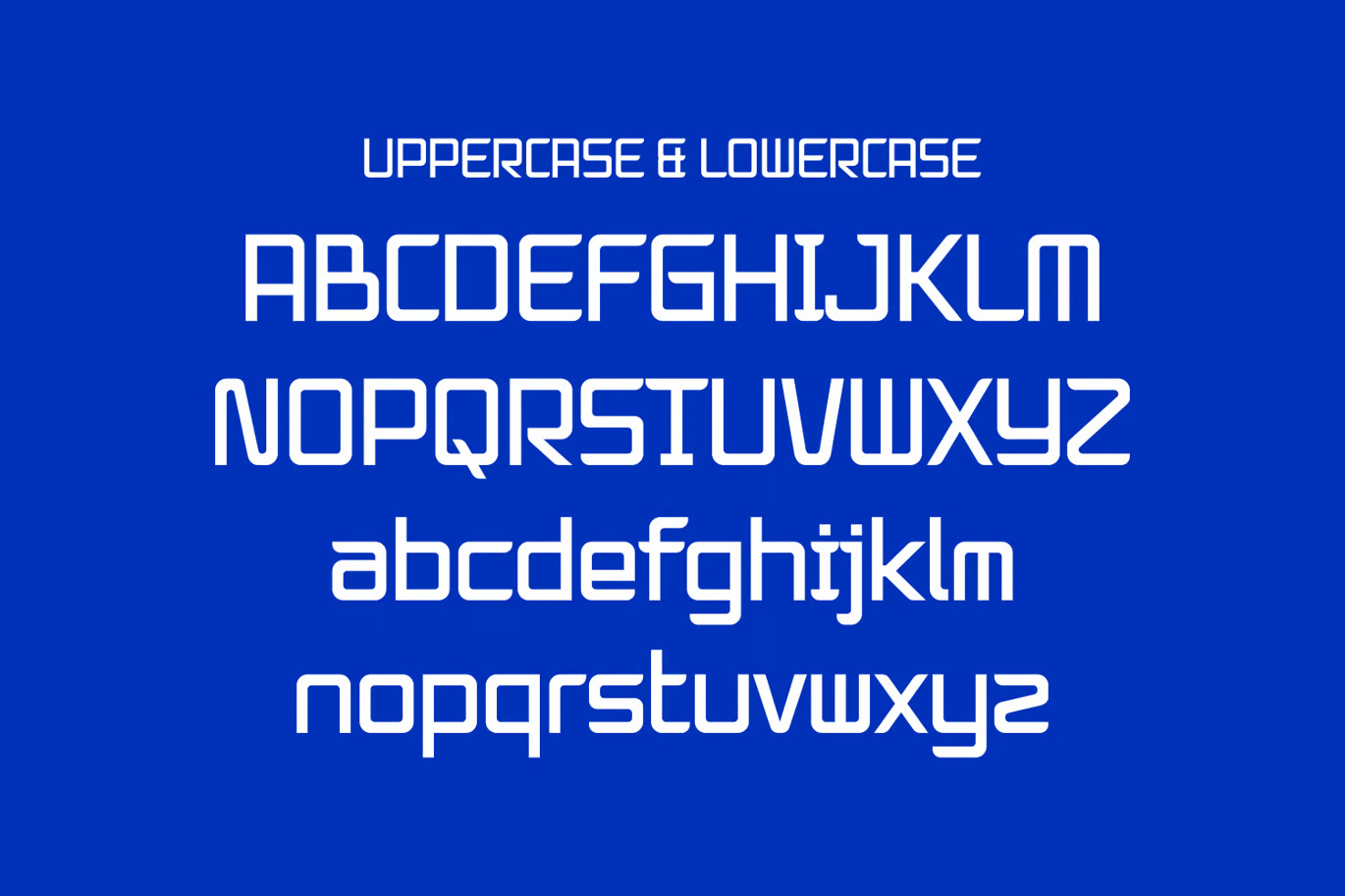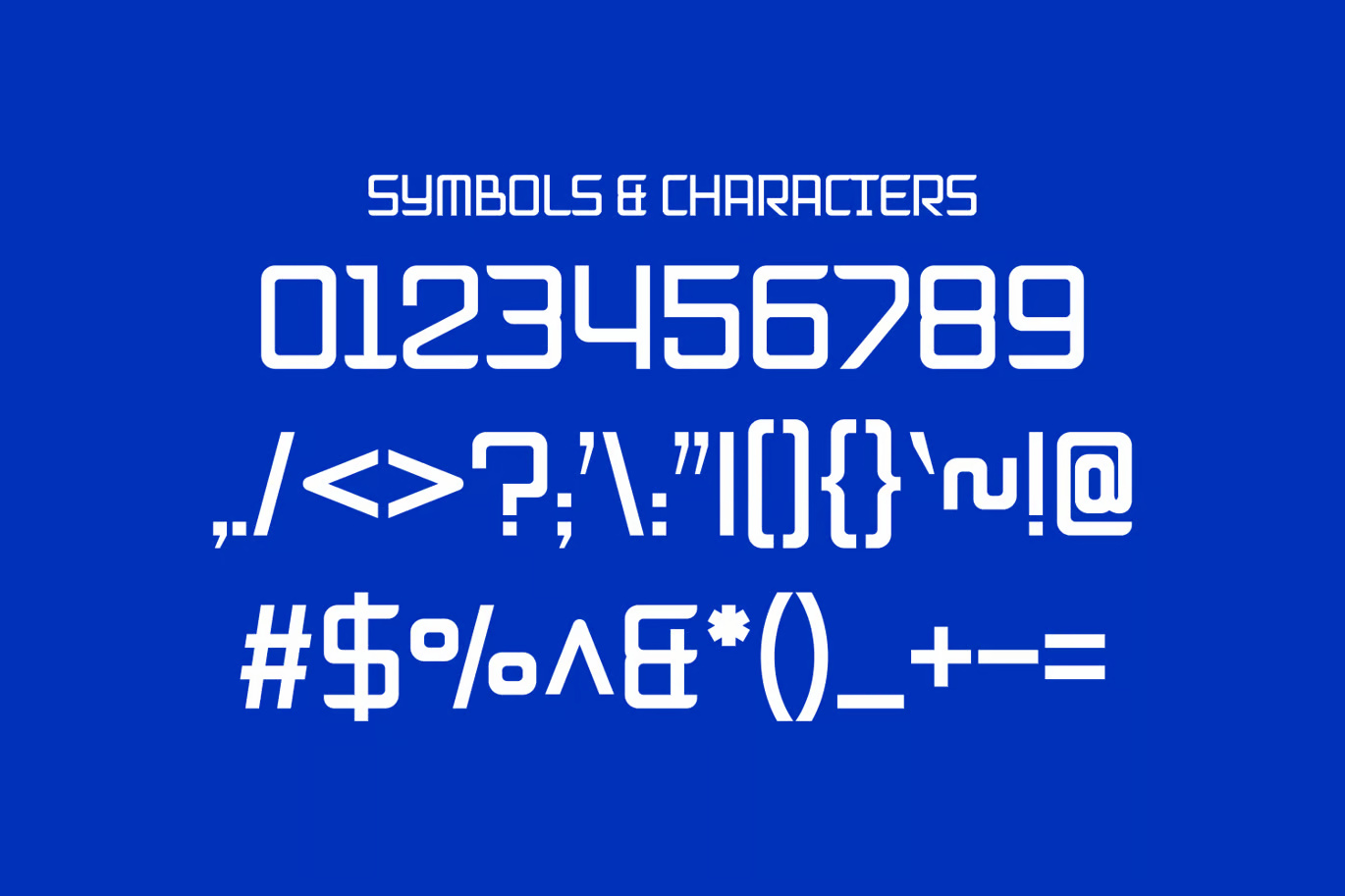
Brigo – Technology Display Font
Brigo is a sleek and modern display font designed for both print and screen. Its futuristic, tech-inspired style makes it perfect for branding, business cards, posters, logos, magazines, covers, banners, t-shirts, headers, and even large-scale artwork. With its clean lines and strong presence, Brigo adds a cutting-edge touch to any project.
Brigo – Technology Display Sans-Serif Font